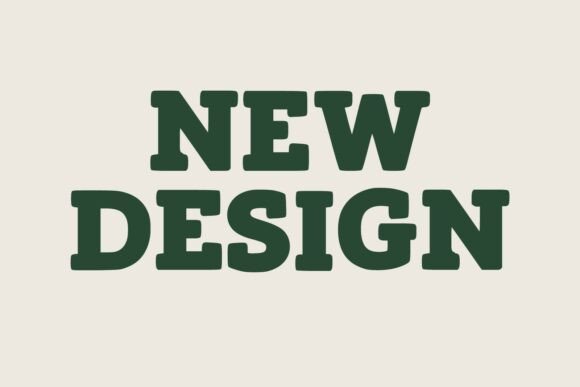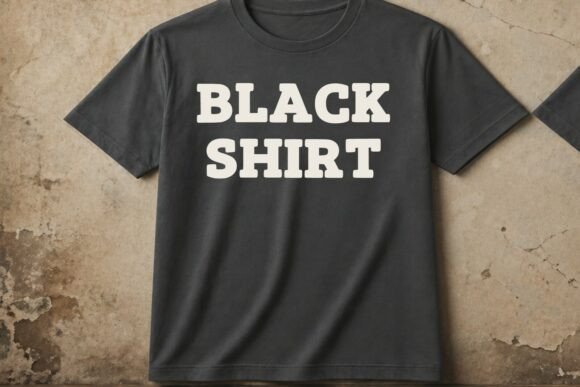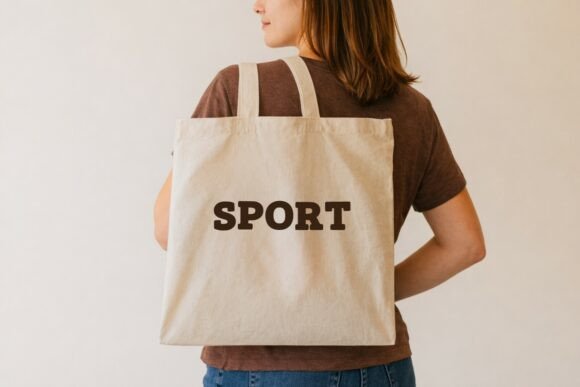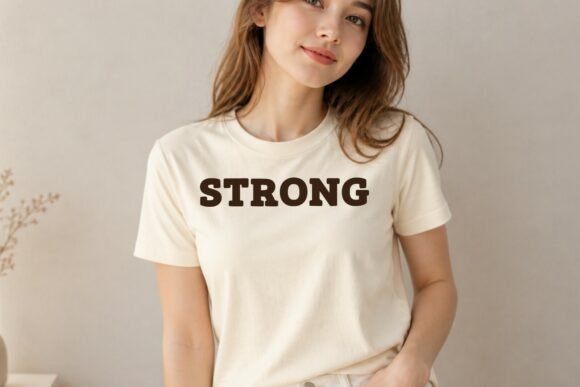
Athletic Vintage Font: A Timeless Classic for Sports-Inspired Designs
Are you looking for a font that embodies the spirit of classic sports typography and vintage collegiate lettering? Look no further than Athletic Vintage, a bold retro display font that’s perfect for designers and crafters seeking a nostalgic varsity feel. In this article, we’ll dive into the world of Athletic Vintage, exploring its features, uses, and benefits for your creative projects.
The Inspiration Behind Athletic Vintage
Athletic Vintage is inspired by the iconic typography of classic sports, recalling the golden age of athletic design. The font’s strong slab-serif characters evoke the nostalgia of vintage collegiate lettering, perfect for creating bold and eye-catching designs. Whether you’re working on a logo, poster, or t-shirt design, Athletic Vintage brings a timeless athletic style that’s sure to impress.
Key Features of Athletic Vintage
So, what makes Athletic Vintage so special? Here are some of its key features:
- Bold and Clean Appearance: Athletic Vintage boasts a bold and clean appearance, making it perfect for headlines, labels, and other design elements that need to stand out.
- Slab-Serif Characters: The font’s slab-serif characters give it a sturdy, athletic feel that’s reminiscent of classic sports typography.
- Timeless Athletic Style: Athletic Vintage’s timeless design ensures that your creations will remain stylish for years to come, without looking dated or trendy.
- Versatility: This font is perfect for a wide range of creative projects, from logos and posters to t-shirt designs, branding, and packaging.
Uses for Athletic Vintage
Athletic Vintage is an incredibly versatile font, suitable for a variety of design projects. Here are some ideas to get you started:
- Logos: Create a bold and memorable logo for your sports team, business, or brand with Athletic Vintage.
- Posters: Design eye-catching posters for sports events, tournaments, or promotions using Athletic Vintage.
- T-Shirt Designs: Add a touch of nostalgia to your t-shirt designs with Athletic Vintage, perfect for sports teams, schools, or events.
- Branding: Establish a strong brand identity with Athletic Vintage, ideal for sports-related businesses or organizations.
- Sports Themes: Create sports-themed designs, such as jerseys, stickers, or flyers, with Athletic Vintage.
- Packaging: Add a bold and athletic touch to your packaging designs with Athletic Vintage.
- Headlines and Labels: Use Athletic Vintage for headlines and labels that need to stand out, such as titles, headings, or captions.
Athletic Vintage offers numerous benefits for designers and crafters, including:
- Easy to Read: The font’s bold and clean appearance makes it easy to read, even at small sizes.
- Highly Versatile: Athletic Vintage can be used for a wide range of design projects, from digital designs to print materials.
- Nostalgic Feel: The font’s vintage-inspired design adds a nostalgic touch to your creations, perfect for sports-themed designs or retro-inspired projects.
- Time-Saving: With Athletic Vintage, you can create professional-looking designs quickly and easily, without spending hours on typography.
In conclusion, Athletic Vintage is a bold retro display font that’s perfect for designers and crafters seeking a timeless athletic style. With its strong slab-serif characters, bold and clean appearance, and versatility, Athletic Vintage is ideal for a wide range of creative projects. Whether you’re working on logos, posters, t-shirt designs, or packaging, Athletic Vintage brings a nostalgic varsity feel that’s sure to impress. So why wait? Download Athletic Vintage today and start creating stunning designs that evoke the spirit of classic sports typography!